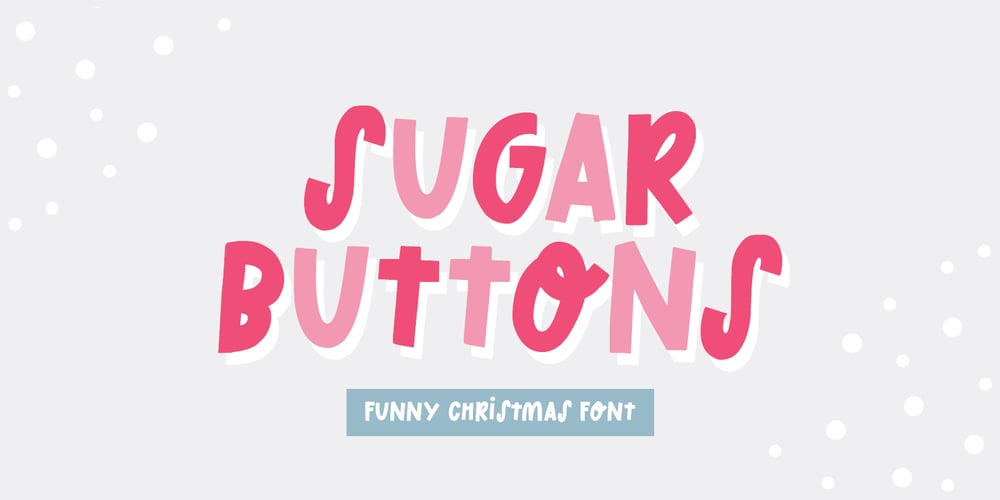
Sugar Buttons Font Family was designed by Dmitrii Chirkov and published by Supfonts. Sugar Buttons contains 1 styles and family package options. Sugar Buttons is perfect for your holiday projects. Use it for Christmas cards, winter crafts for decor and more!What’s inside:- Sugar Buttons Script- Multilingual support- Cricut supportIf you have any questions, please contact me directly or in instagram @superdizigner